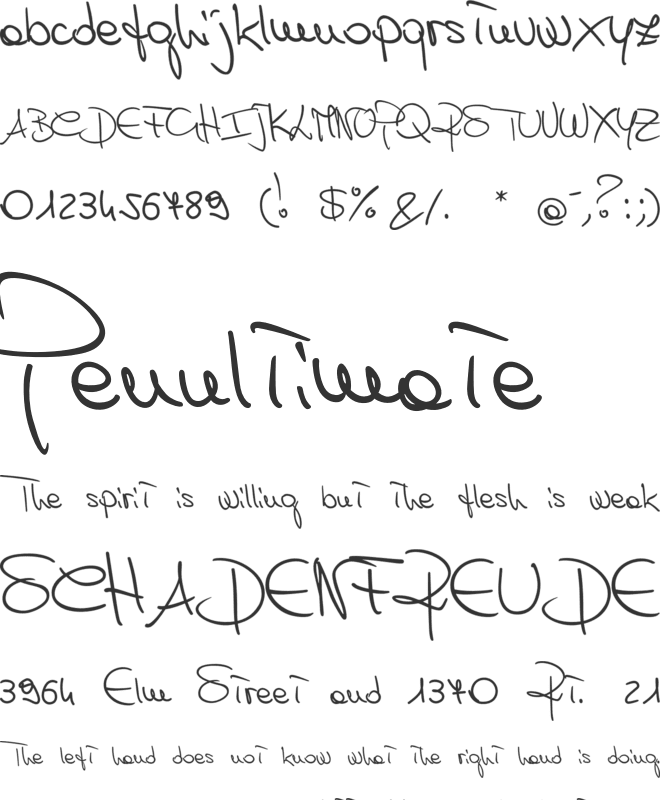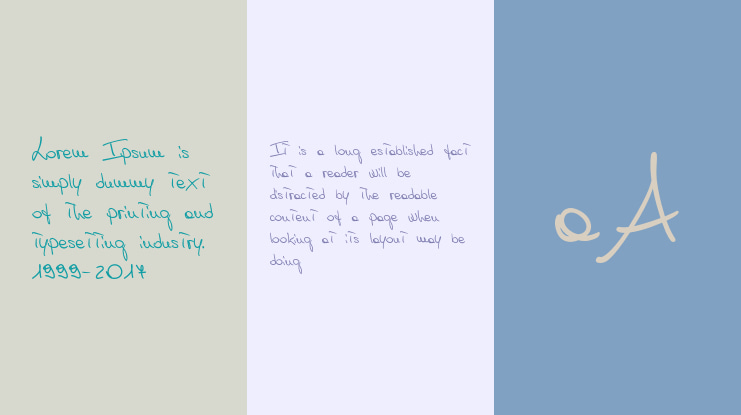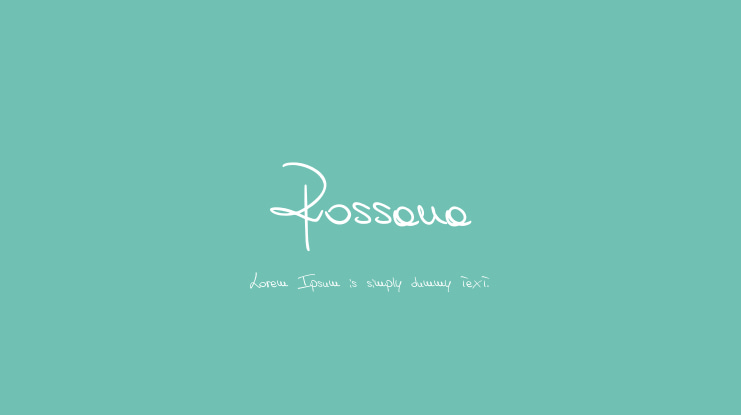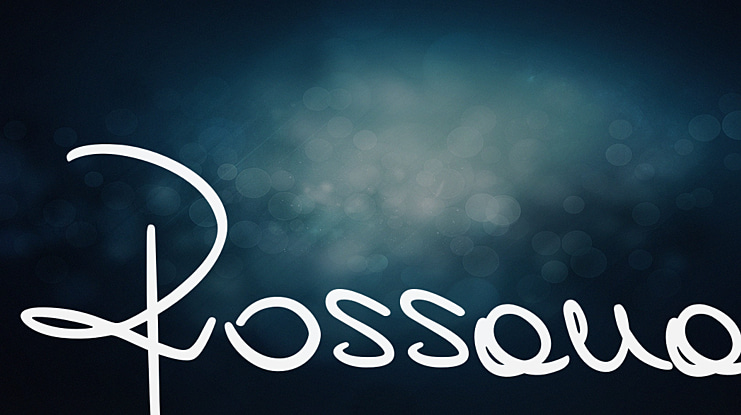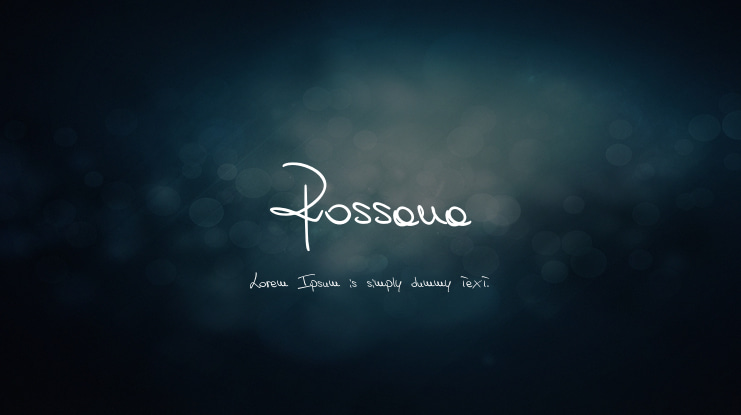
Rossana Font
A true realistic female handwriting. One that looks like “real” handwriting coming from a “real” person. Enjoy this font and the many gliphs that will help you create an even more realistic flow.